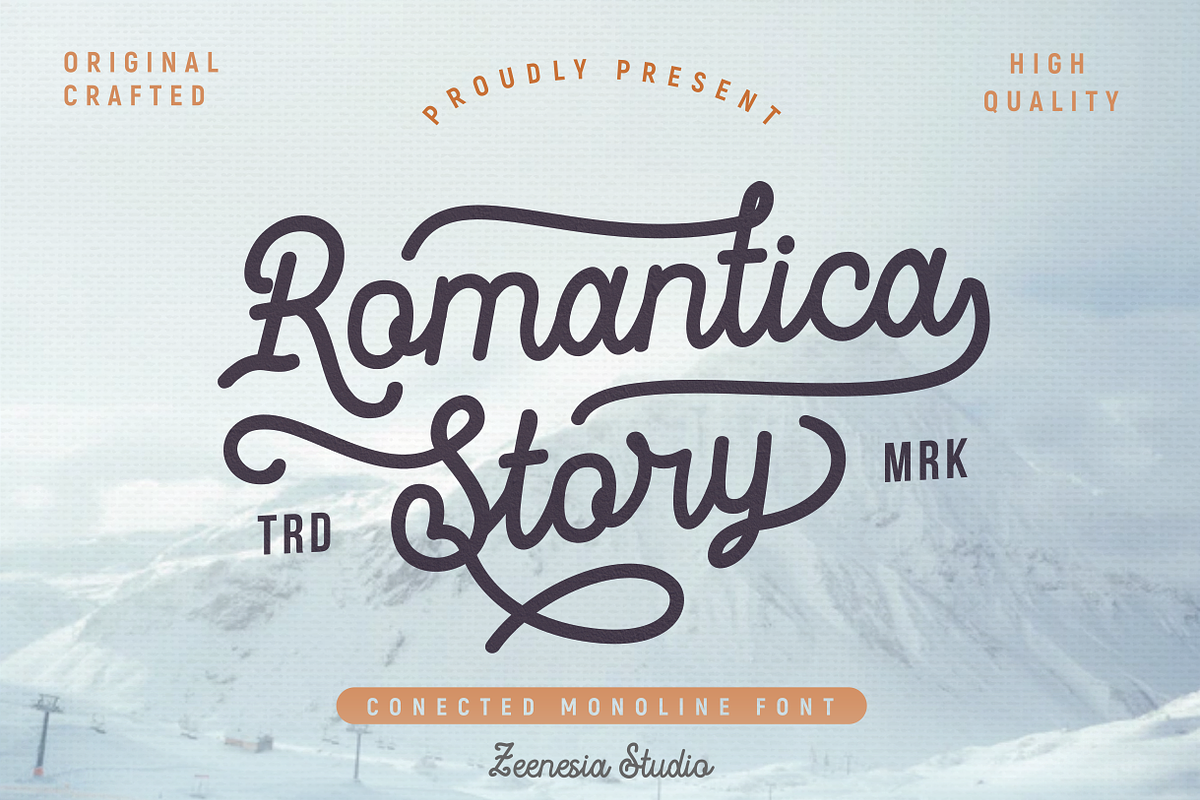
Romantica Story – Connected Monoline Font Free Download is a delicate and elegant script typeface featuring smooth, continuous strokes and a charming monoline style. Perfect for wedding invitations, romantic quotes, feminine branding, logos, and handmade product packaging, this font brings a graceful, handwritten feel to every project.
Its seamless connections and clean, thin lines make it both sophisticated and approachable, while its soft curves add a touch of romance and warmth. Romantica Story is ideal for both print and digital use when your design needs a subtle, heartfelt voice.